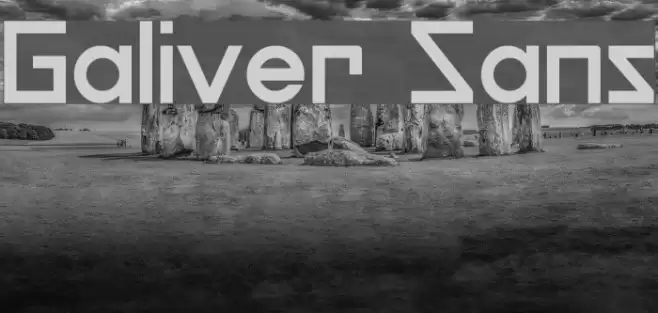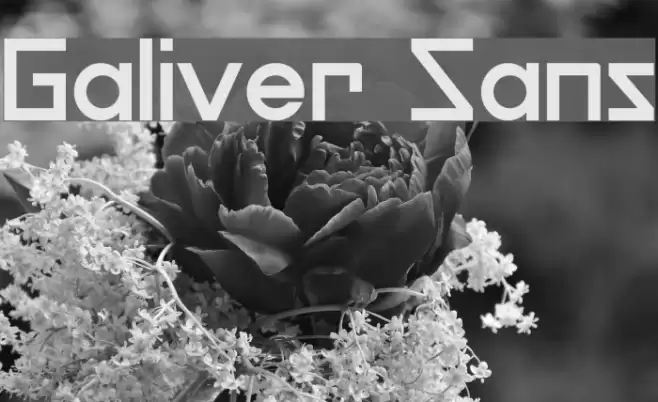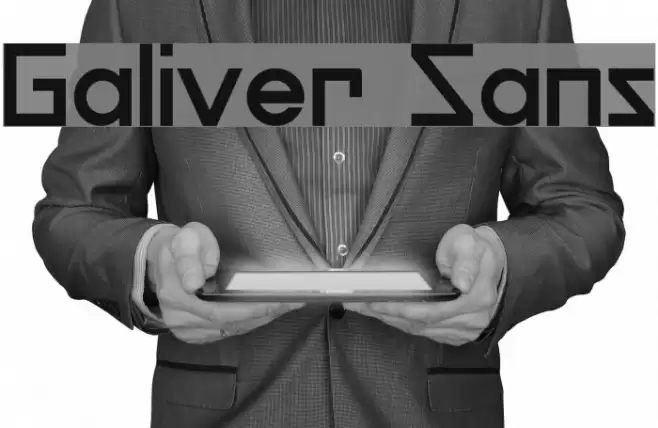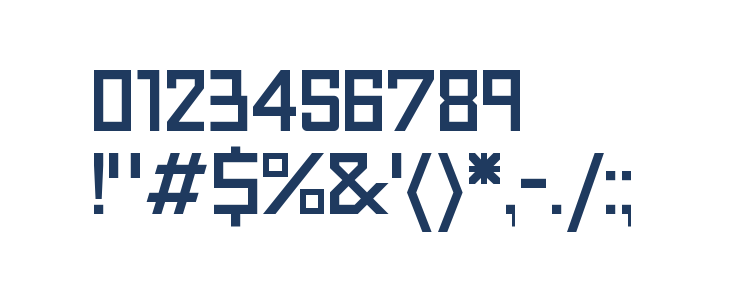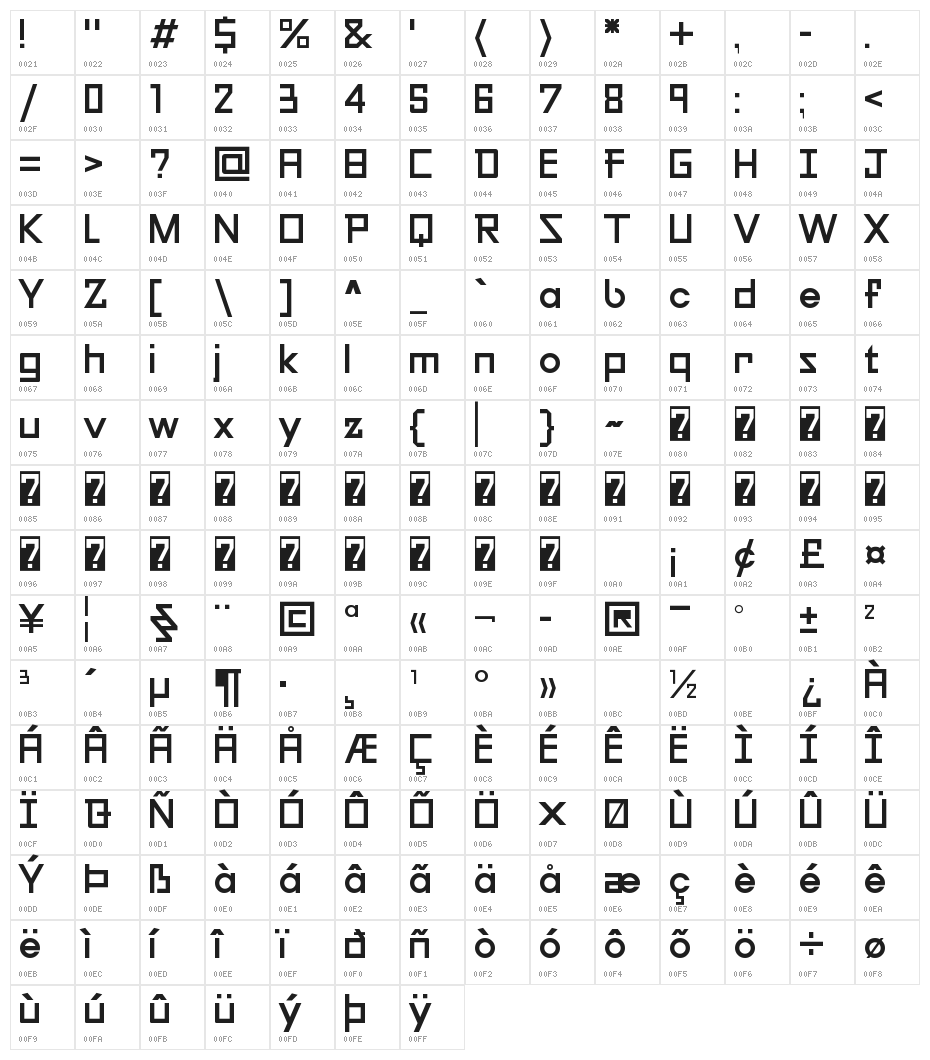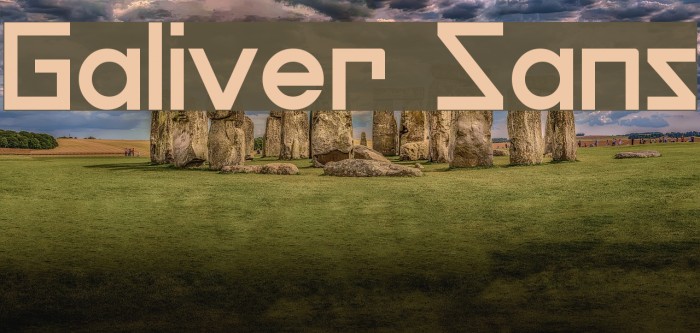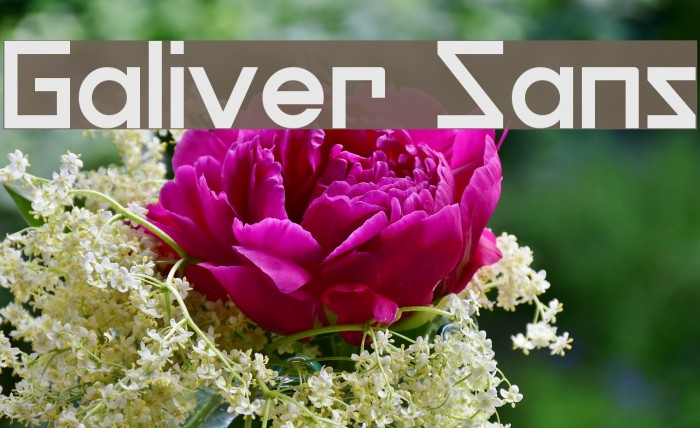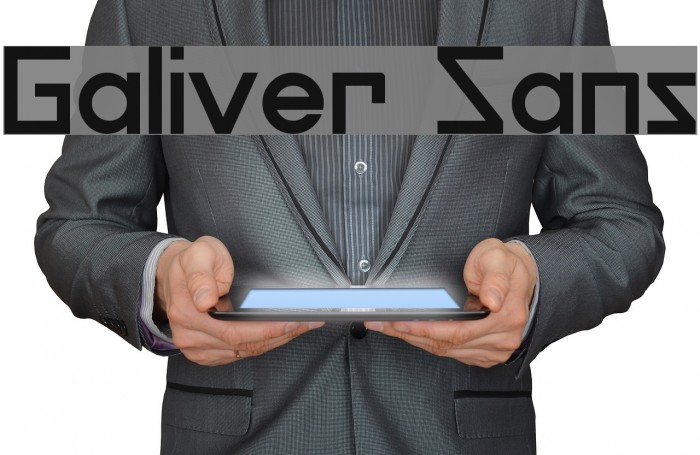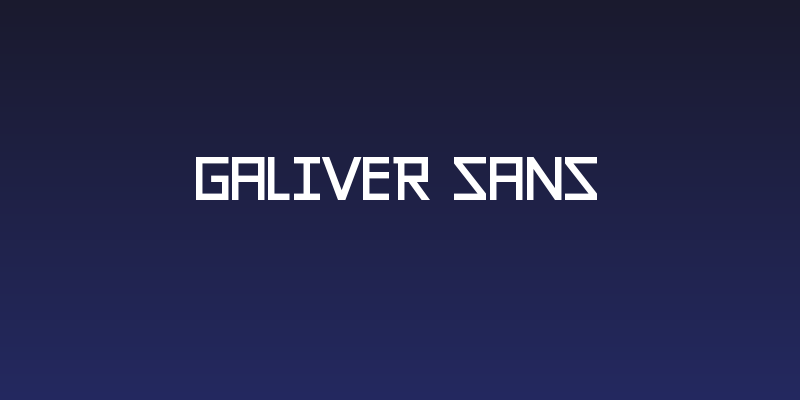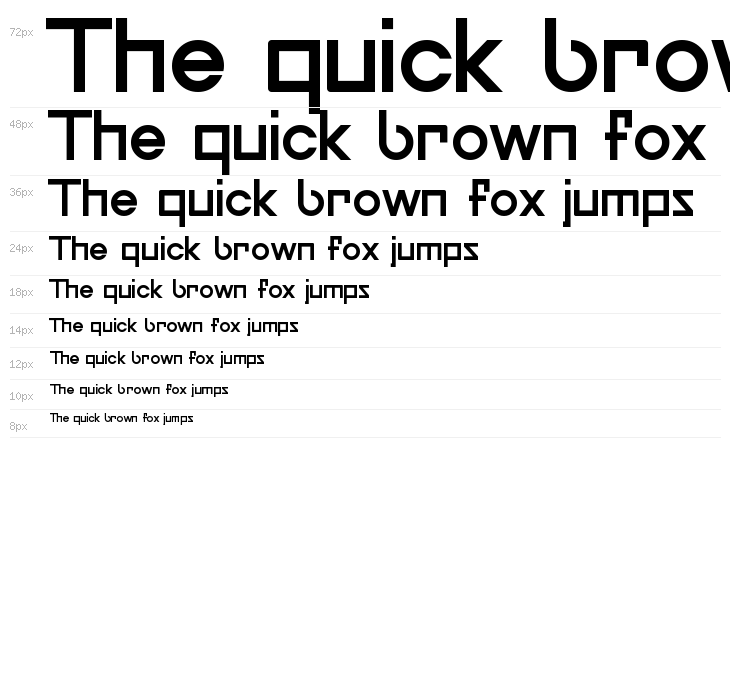
Galiver Sans Font
Galiver Sans Description
This font features a bold and geometric design, characterized by its strong, angular lines and modern aesthetic. The uppercase letters are uniform in height, with a distinct block-like appearance, while the lowercase letters maintain a similar geometric style with slightly softer edges. The numerals are consistent with the overall design, offering a cohesive look across all characters. Special characters are crafted with the same attention to angular detail, ensuring a seamless integration with the alphabetic characters. This font's boldness and clarity make it ideal for impactful visual statements.
A bold, geometric font with strong, angular lines and a modern aesthetic from Uncategorized fonts.